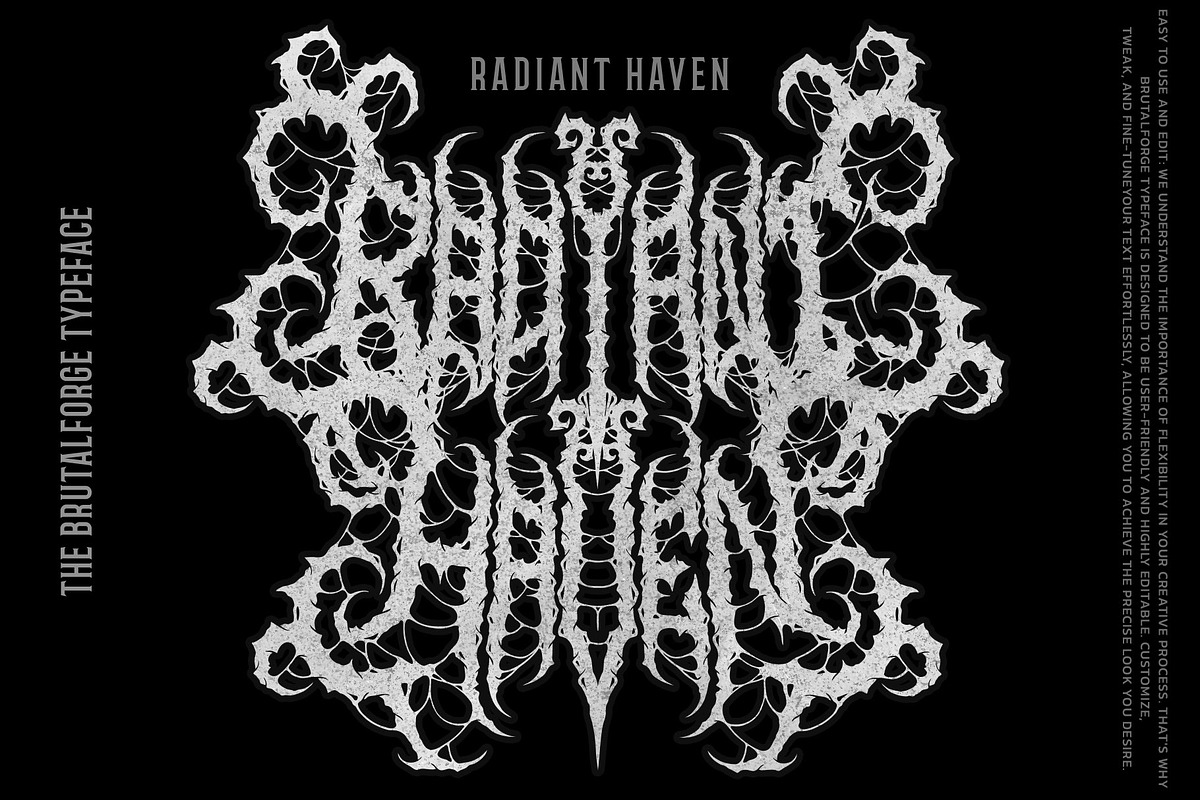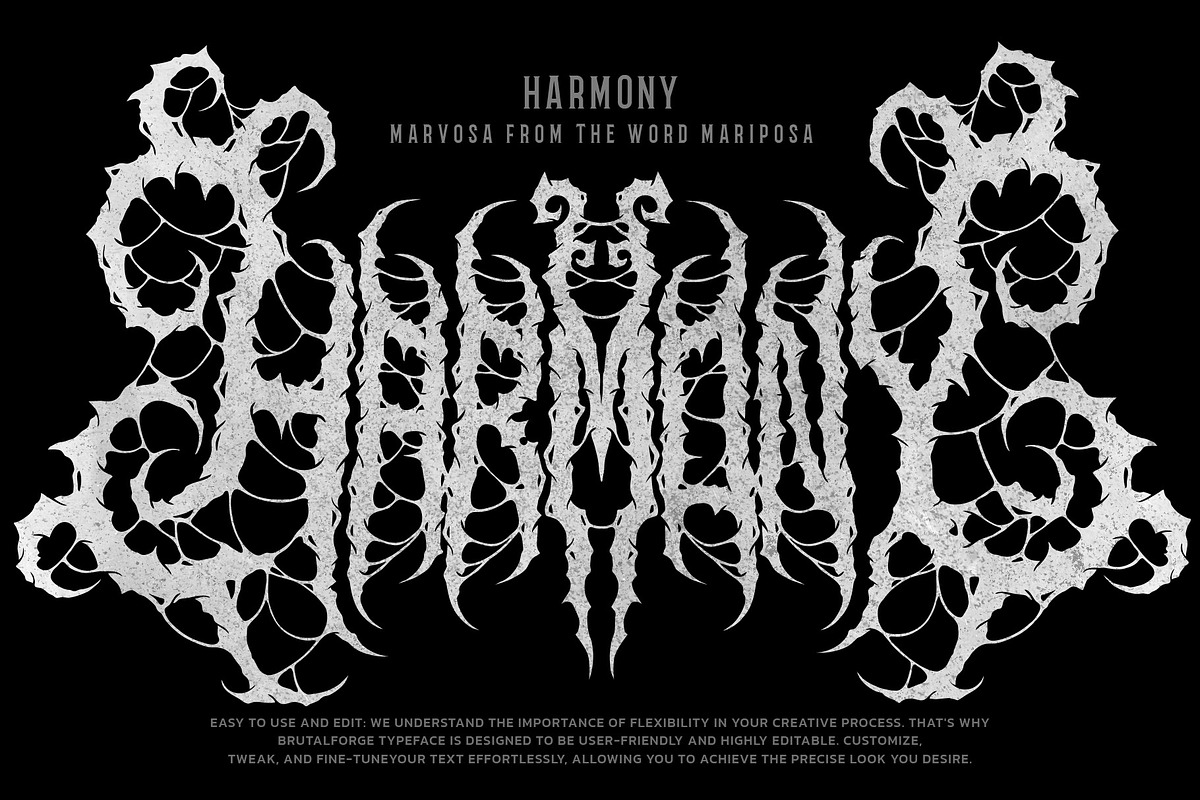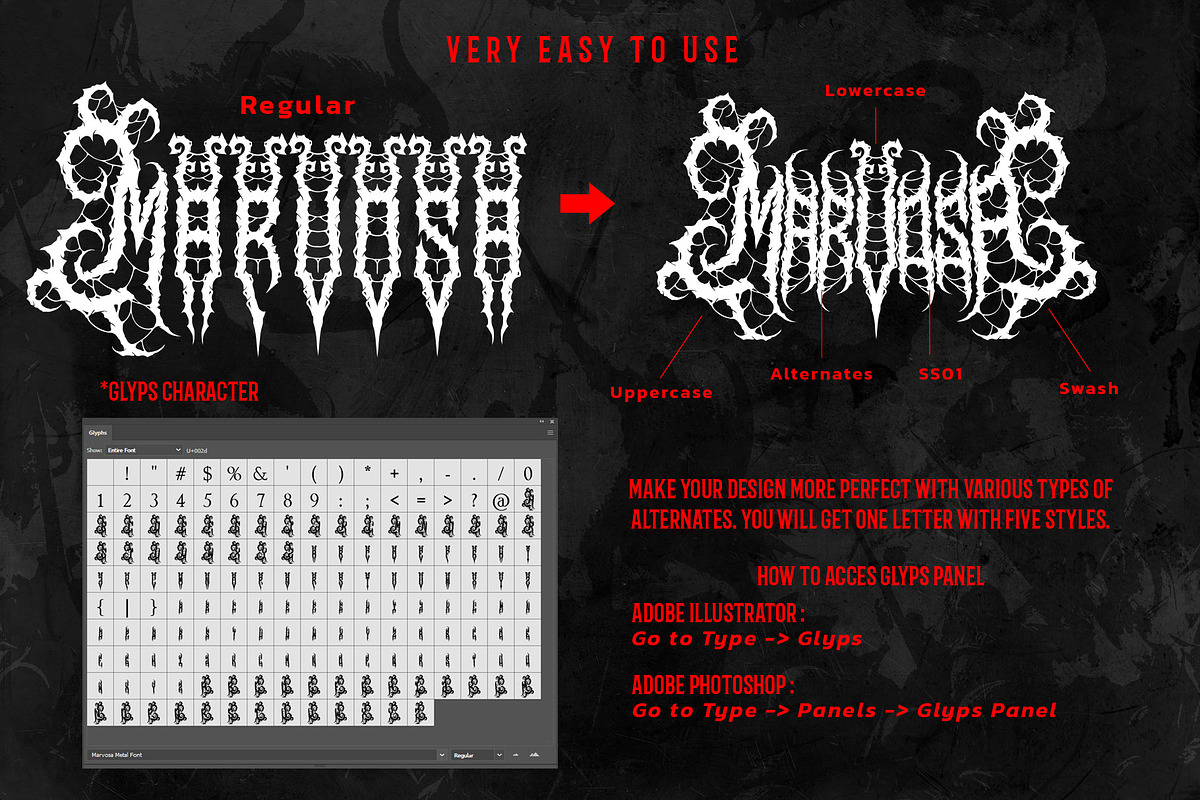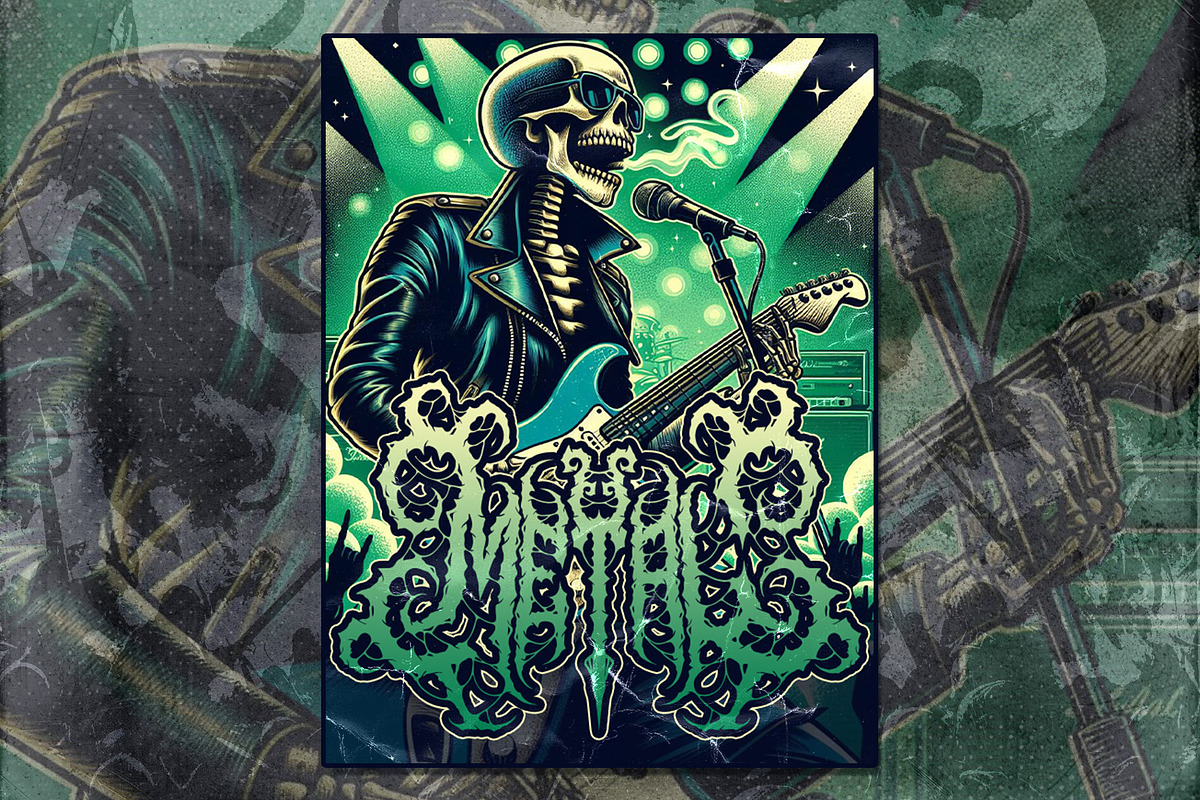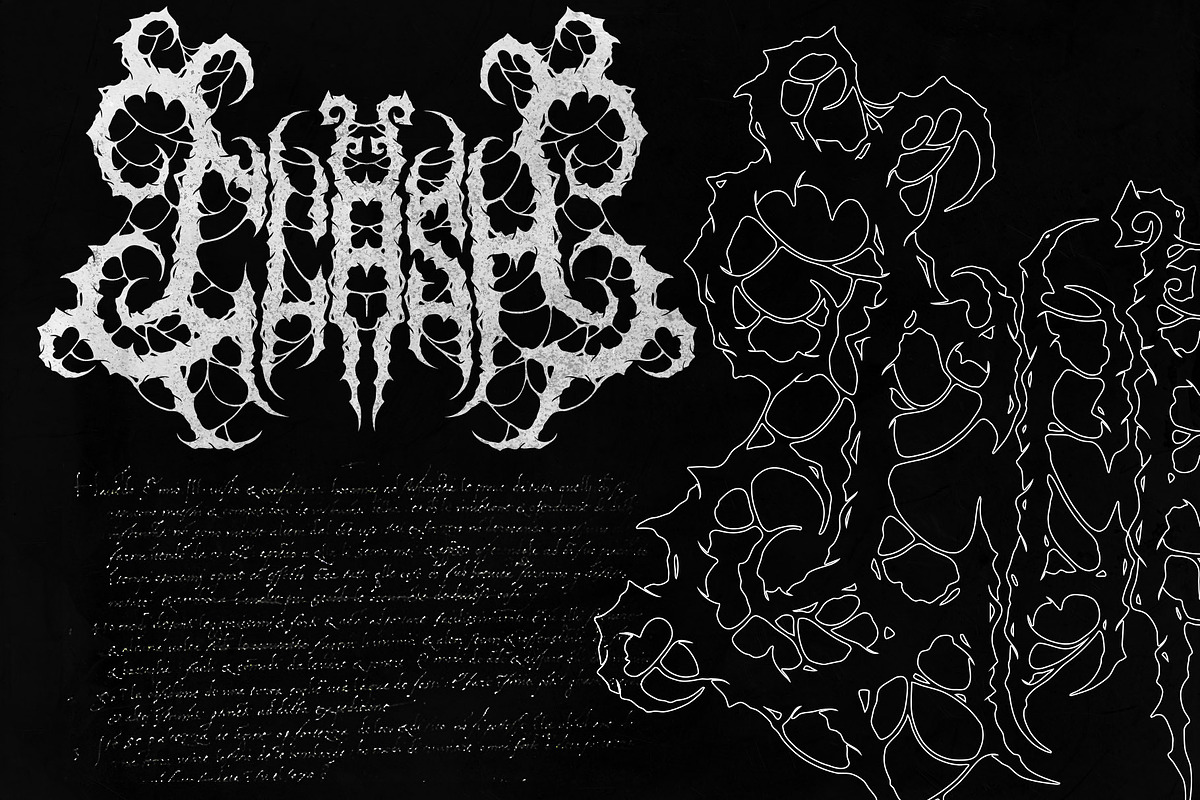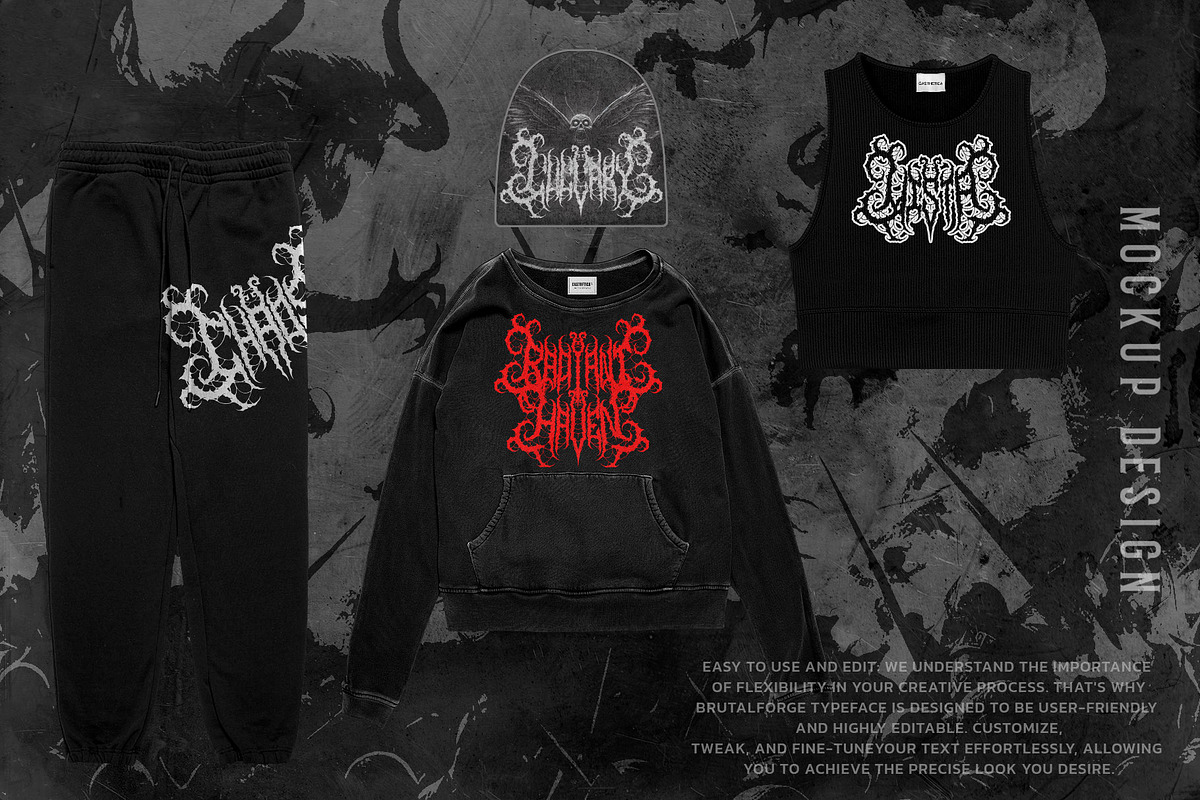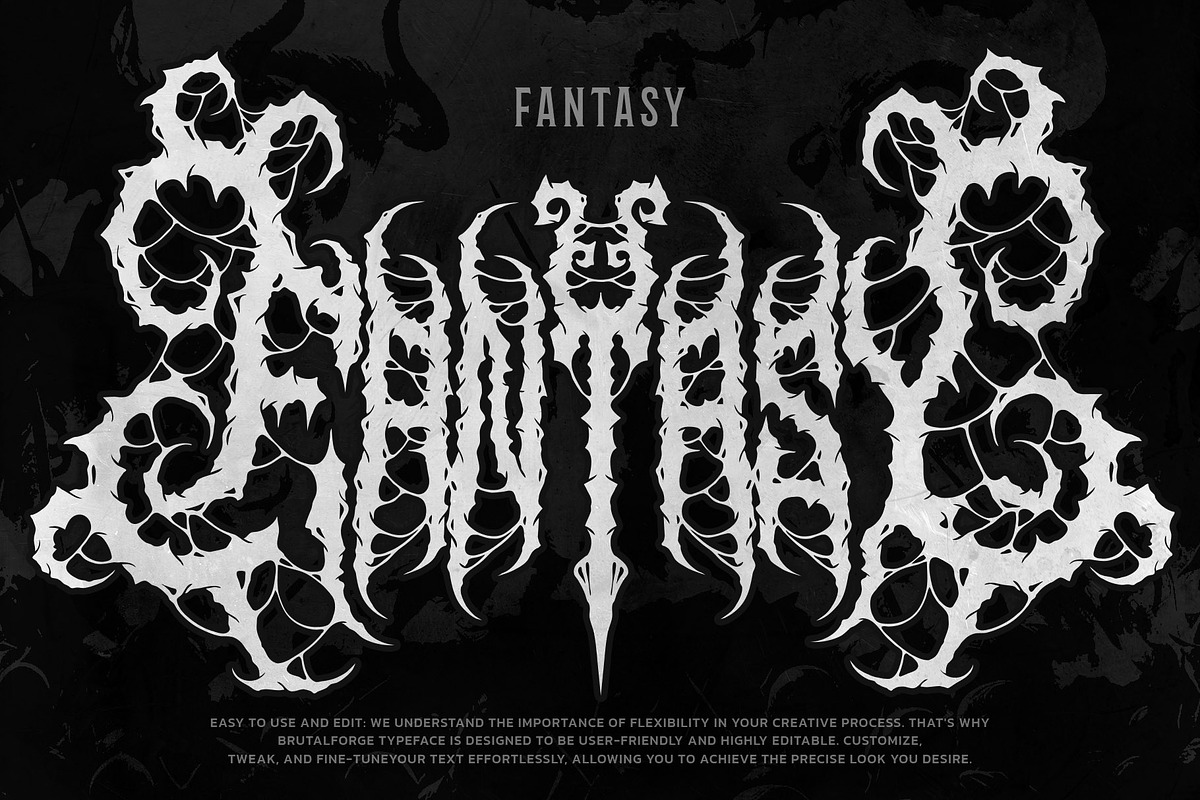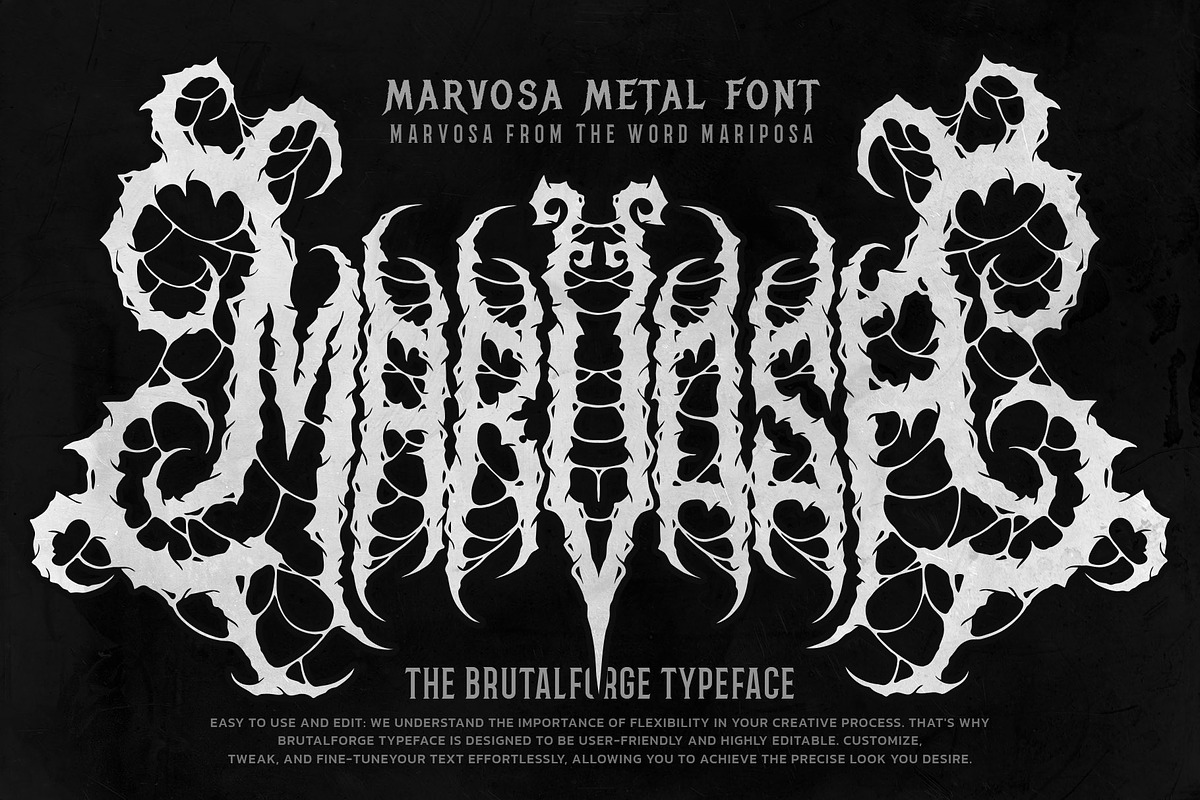
Marvosa Black Metal
Introducing Marvosa, a meticulously crafted black metal font inspired by the word “mariposa.” Designed for versatility and ease of use, Marvosa is perfect for creating striking logos, band merchandise, album covers, posters, and more. This user-friendly typeface allows for easy customization, enabling you to fine-tune your text effortlessly to achieve the precise look you desire.
Unlock the full potential of your creative projects with Marvosa’s bold and unique aesthetic. Whether you’re designing for a metal band, crafting eye-catching merchandise, or creating captivating promotional material, Marvosa delivers the edge you need to stand out. Don’t miss the chance to elevate your work—get Marvosa today and make a lasting impression!